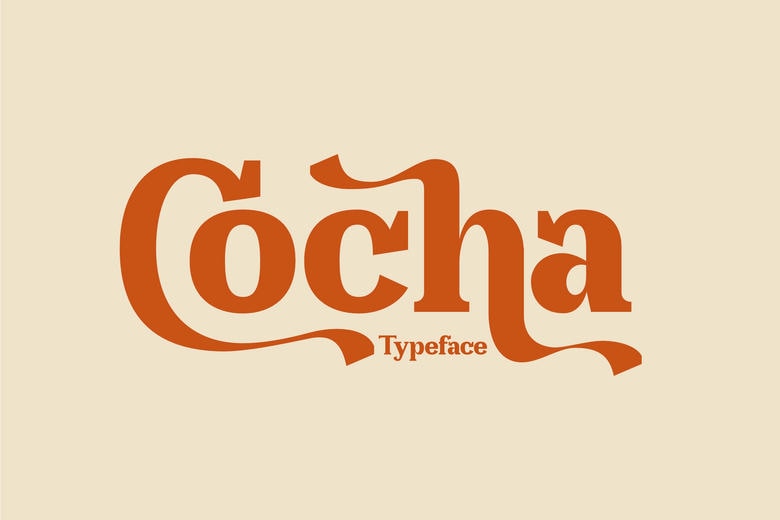
Cocha Font
Cocha is a display serif typeface that bears a unique style for contemporary use and it comes with swashes. This font is suitable for use in logos, magazines, luxury brands, clothing, invitations, typography, and many others. Cocha is PUA encoded which makes it possible for you to achieve any of the glyphs and the swashes.
Cocha Serif Font